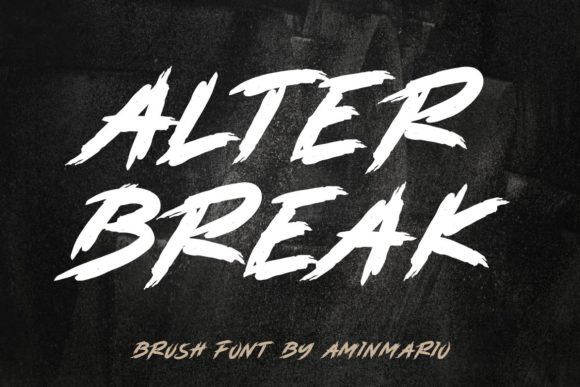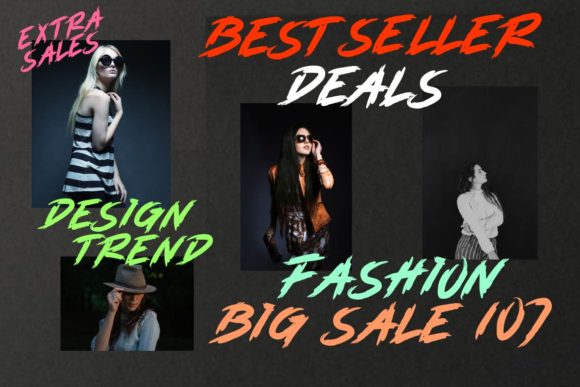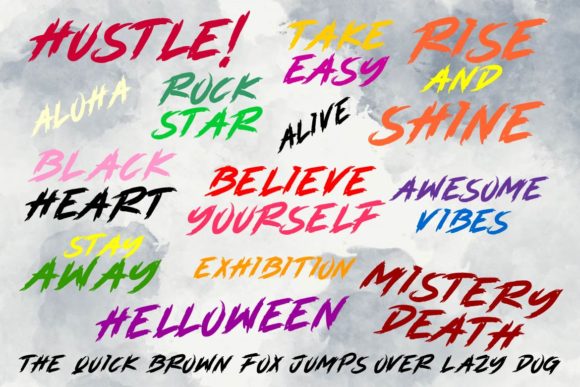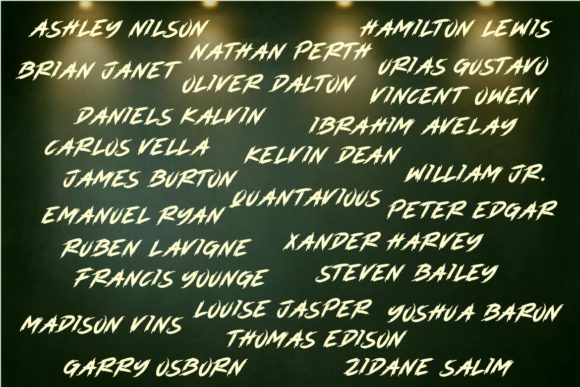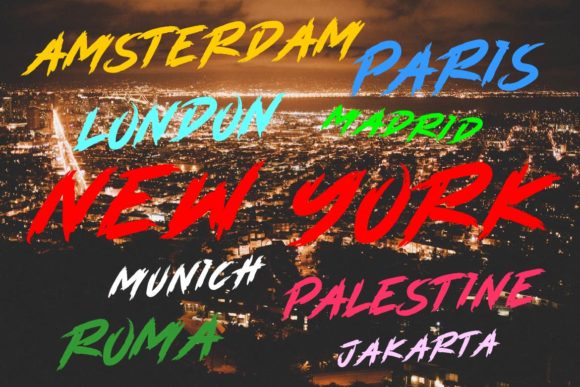
Alterbreak Font
About Alterbreak Font
Alterbreak is a casual, fun handwritten font, created by using a brush pen. Clean and a little bit quirky, this font is the perfect fit for all of your logos, branding, social media, and crafty DIY projects.